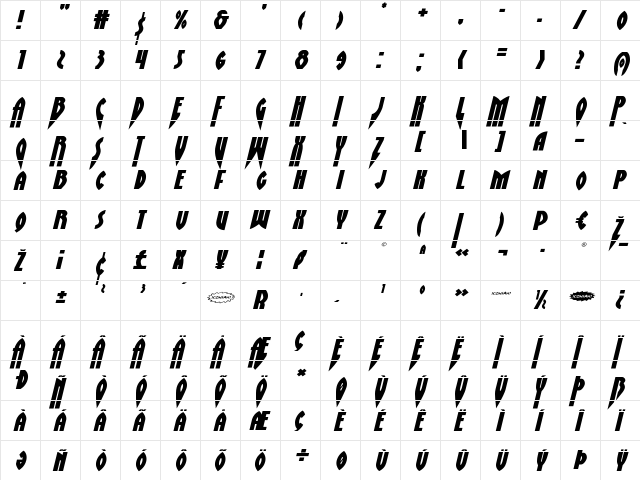
Zirconian Expanded Italic Expanded Italic
Design Context for Zirconian Expanded Italic Typeface
Zirconian Expanded Italic is a composed and adaptable typeface that performs quietly and consistently across a wide range of design contexts. The dynamic lean of this cut emphasises speed and emphasis in any layout.
Pro Tip: Try Zirconian Expanded Italic for annotation and caption copy alongside an upright companion — the contrast in angle creates a dynamic but ordered typographic system.